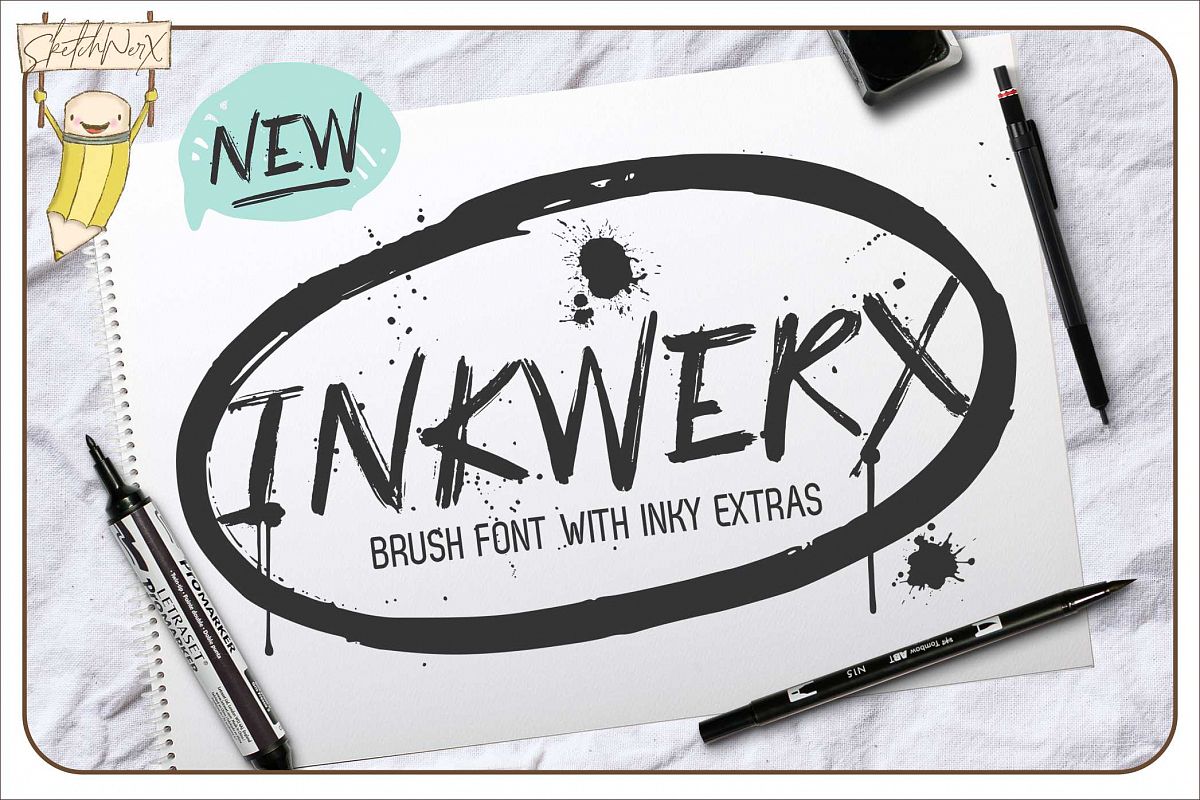
InkWerx Font & Extras
Introducing the bold, messy and fearless , InkWerx font & Extras
InkWerx is a punchy uppercase font that comes in 2 sets of uppercase letters with different splatter, this helps your letters look that little more original.
Also included is a complimentary dingbat font with a set of 26 swashes, drips, and splatter, just what you need to bring your design to life. These will also be available as transparent PNG's (I will send them on request as FontBundles doesnt allow them), vector EPS & Ai  format.